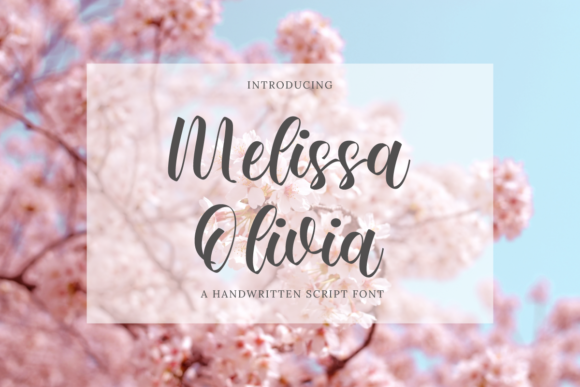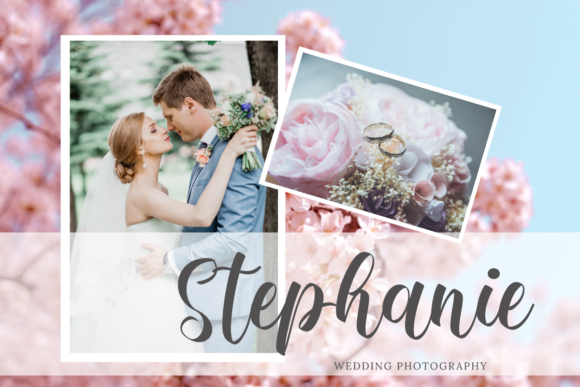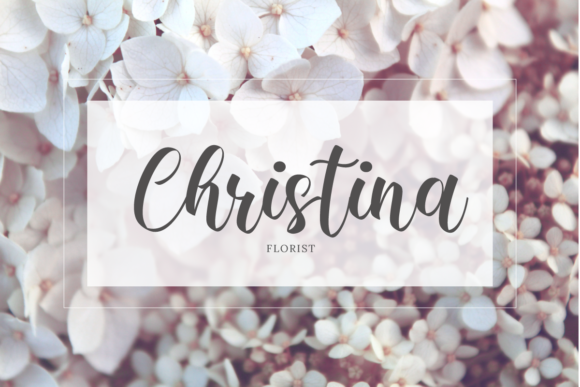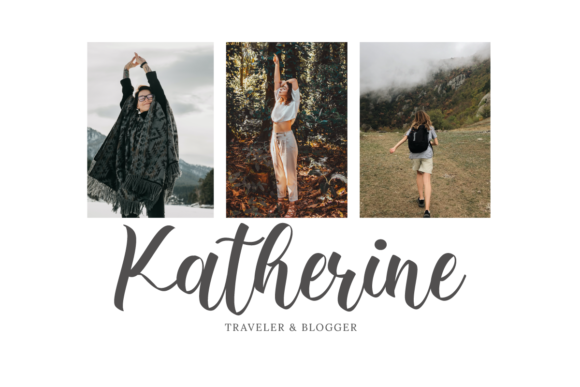
About Melissa Olivia Font
Melissa Olivia is a beautiful and refined script font. It has a classy, elegant and modern look that can be used for logos, branding, invitations, stationery, wedding designs, social media posts, and much more!